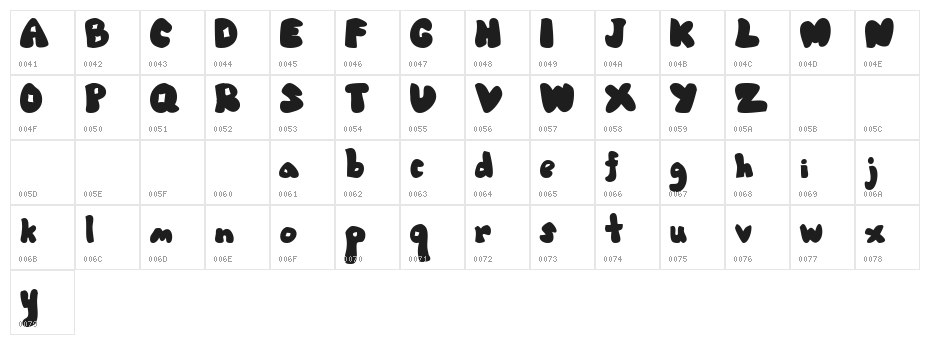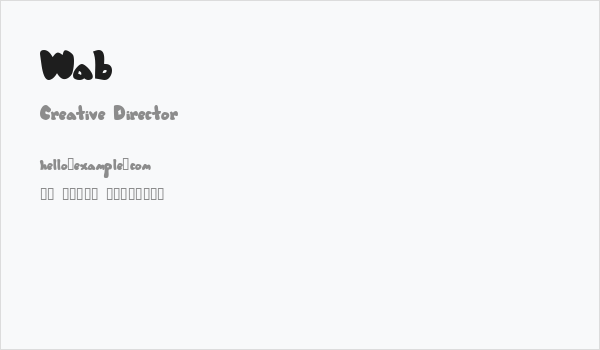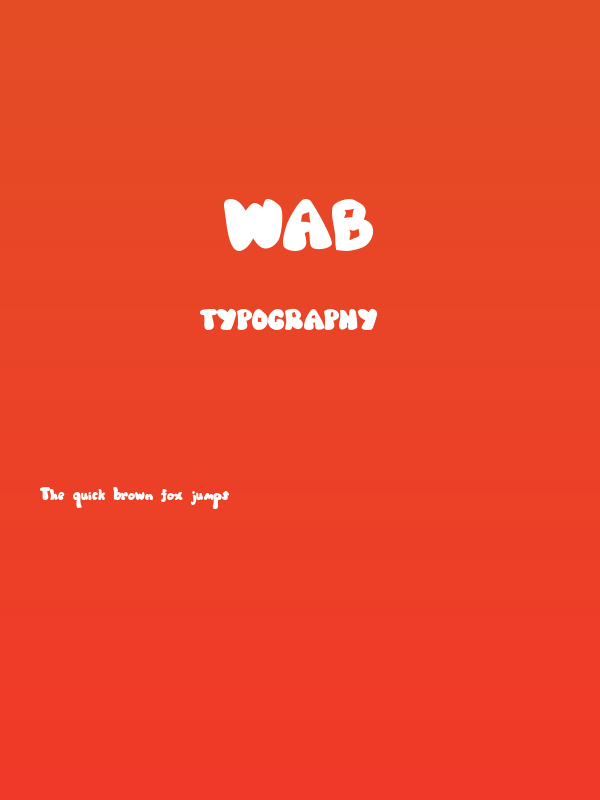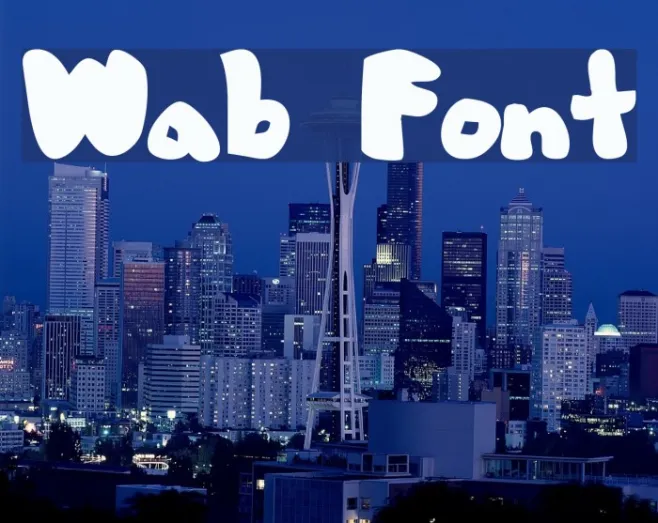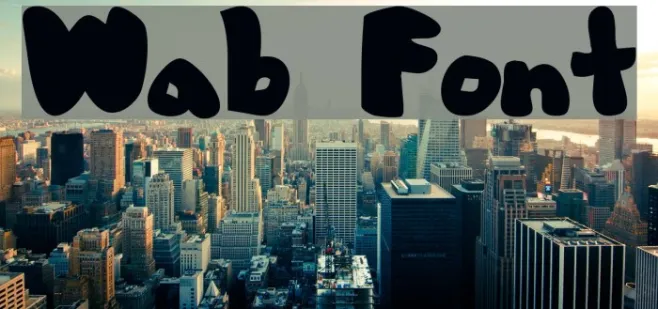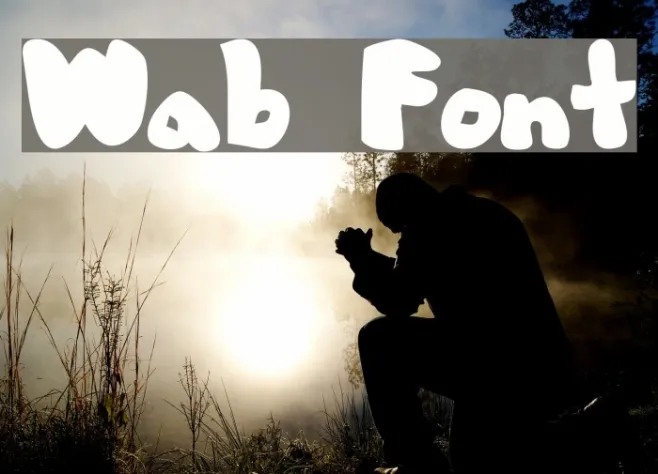
Wab Font
Wab Description
This font features a bold and playful style with thick, rounded strokes that give it a bubbly and friendly appearance. The characters are highly stylized, with exaggerated curves and a sense of movement that adds a dynamic feel. The uppercase and lowercase letters maintain a consistent weight, contributing to a cohesive look. The overall design is informal and whimsical, making it suitable for creative and fun projects. The font lacks traditional serifs, emphasizing its modern and casual aesthetic. It is ideal for capturing attention and conveying a sense of joy and creativity.